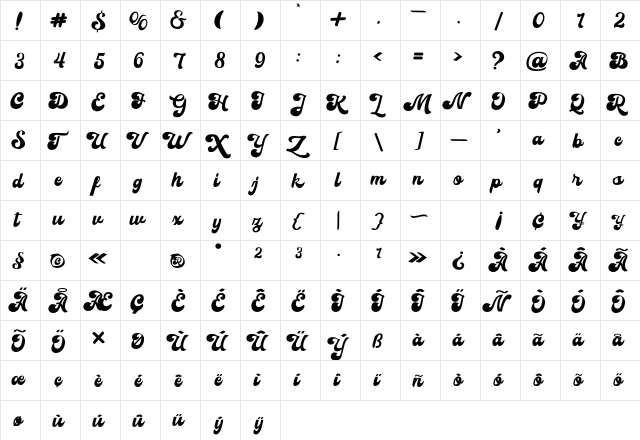
Sianok Valley Script
| Style | Script |
| Foundry | Mevstory Studio |
| Designer | Muhammad Afif Ersya |
Design Context for Sianok Valley Typeface
Sianok Valley flows with the natural rhythm of handwritten lettering, making it ideal for designs that call for warmth and personal expression.